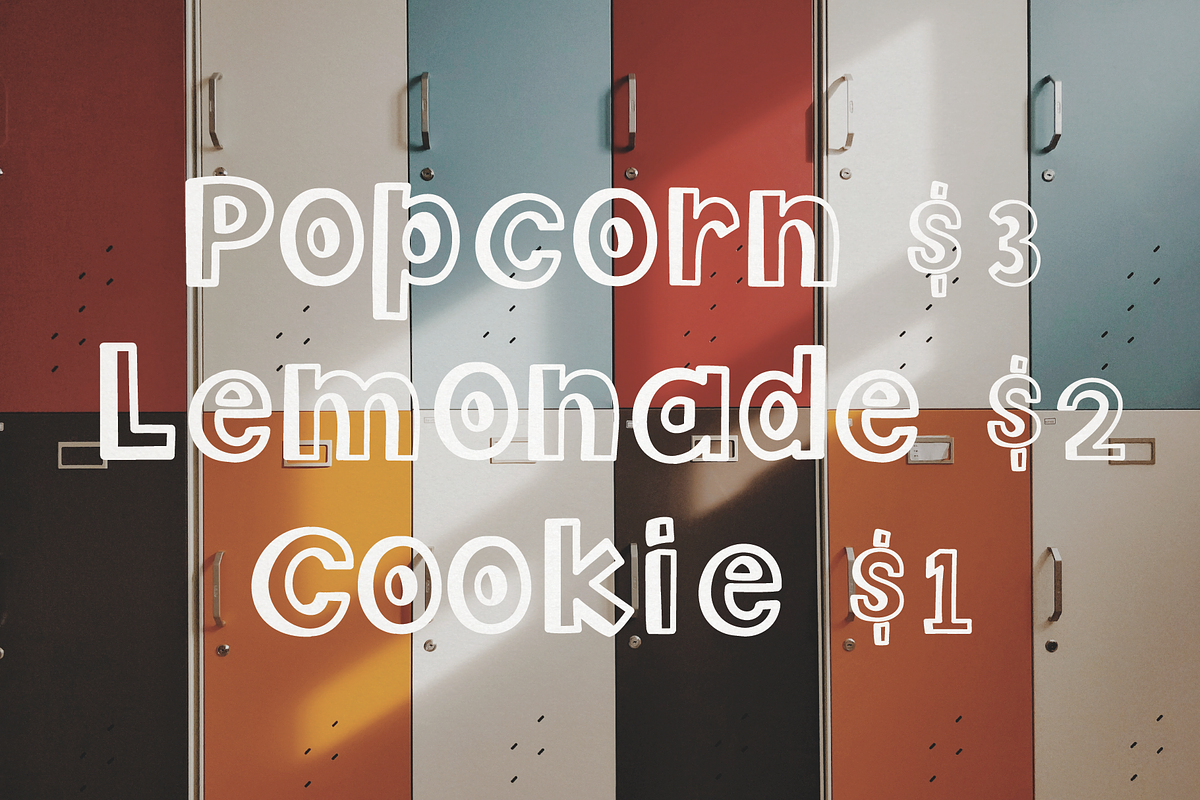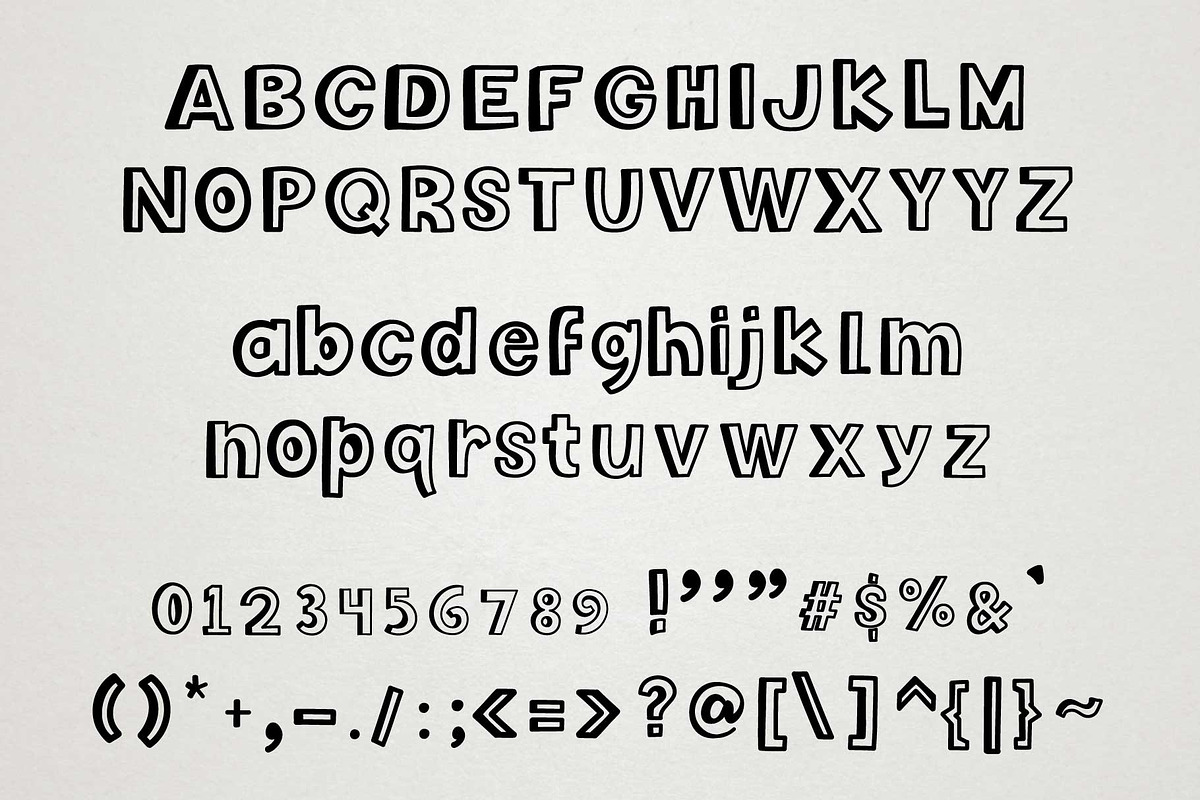
Pep Rally | Font + Illustration Set
This is Pep Rally, an upbeat and cheerful font. Pep Rally shines in playful layouts, including digital illustrations, signage, menus, blogs, social media graphics and more.
Pep Rally includes capital and lowercase letters
Numbers and punctuation